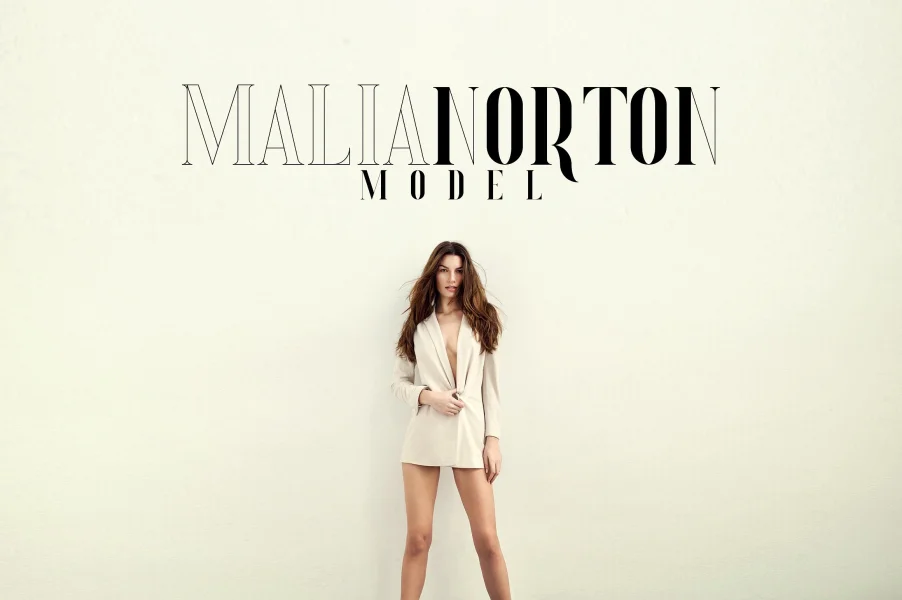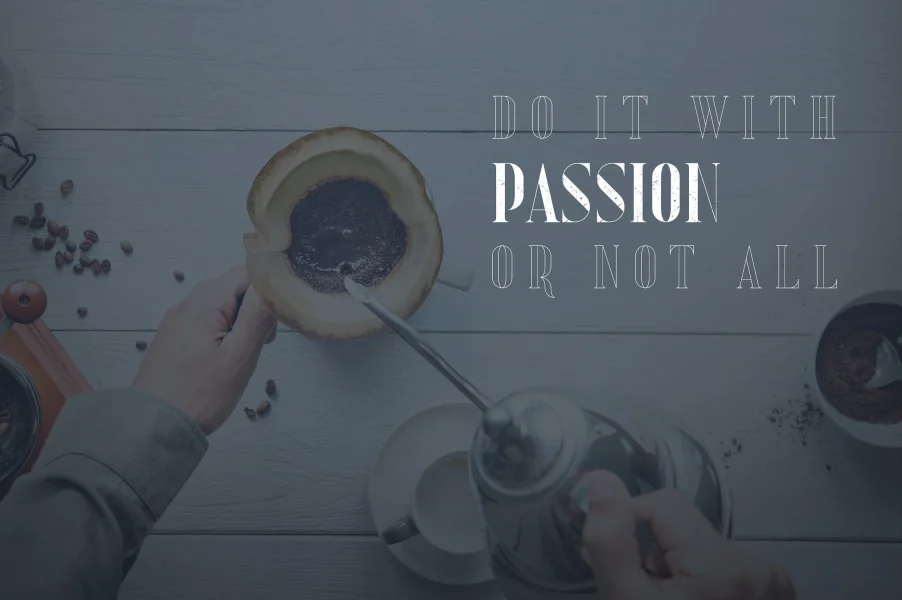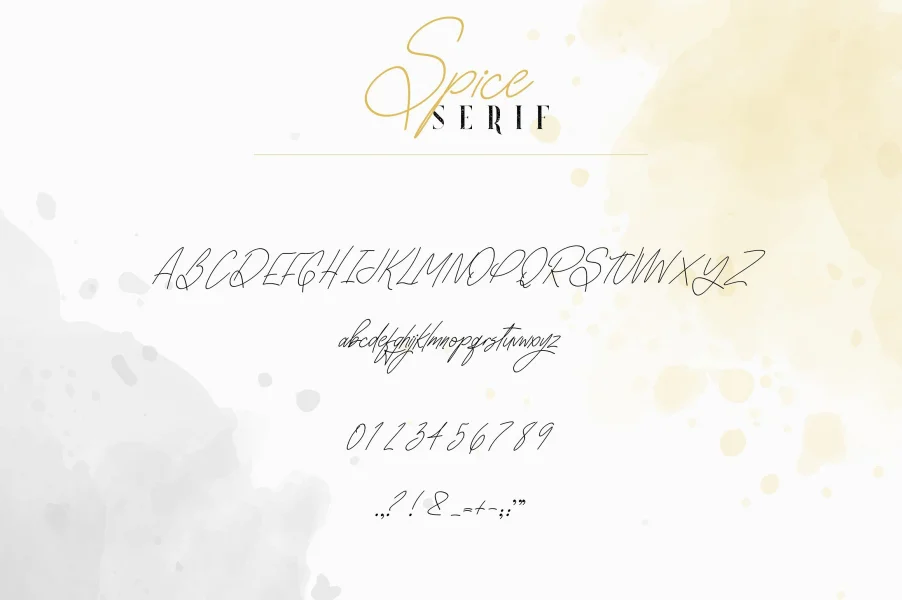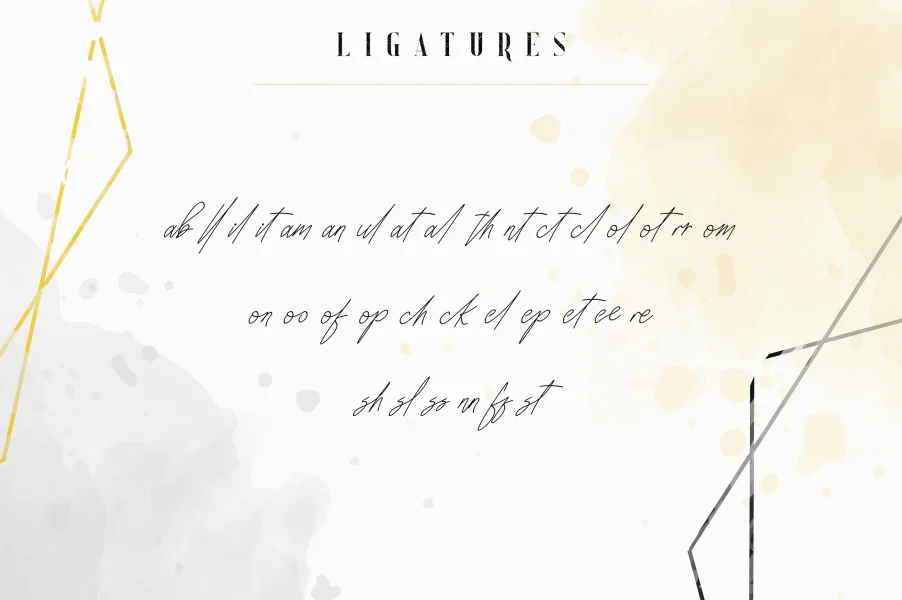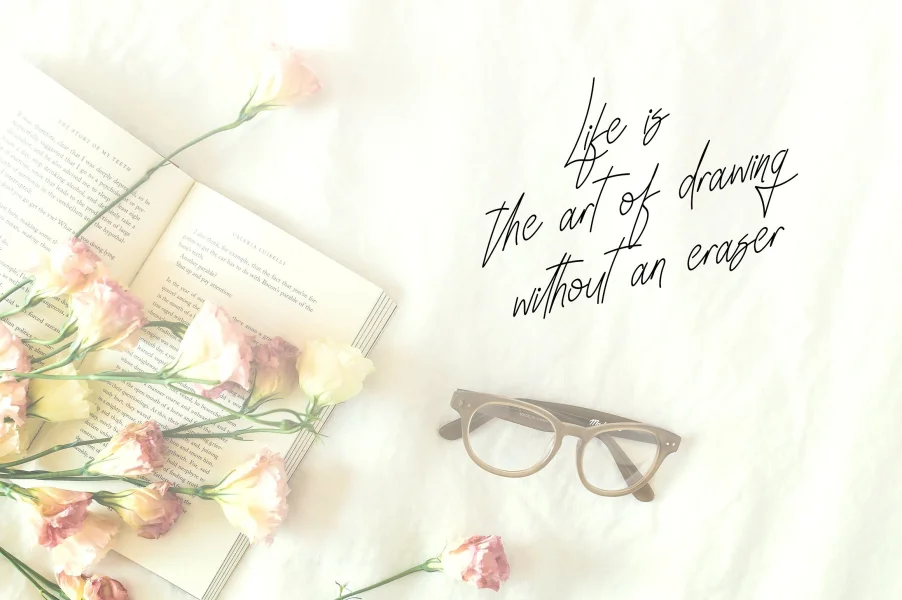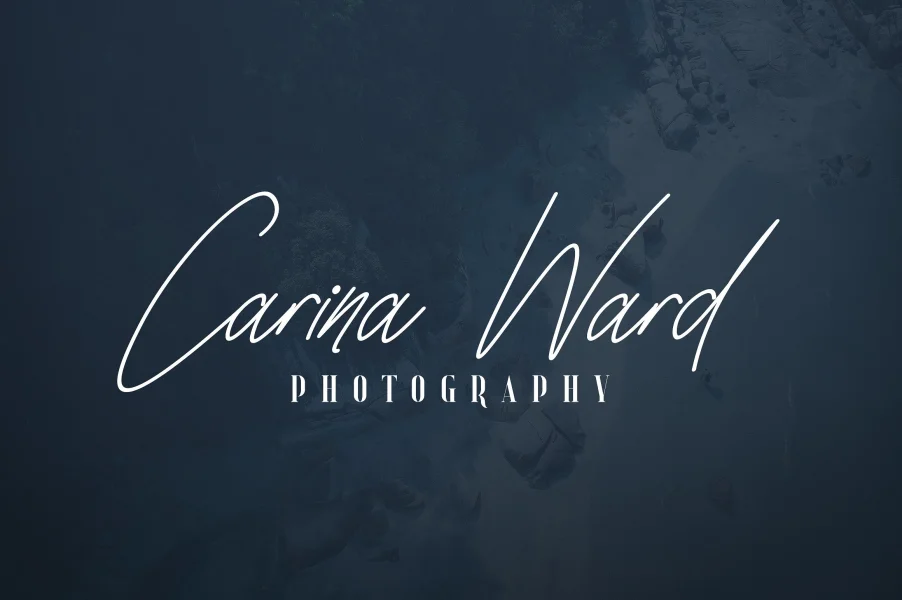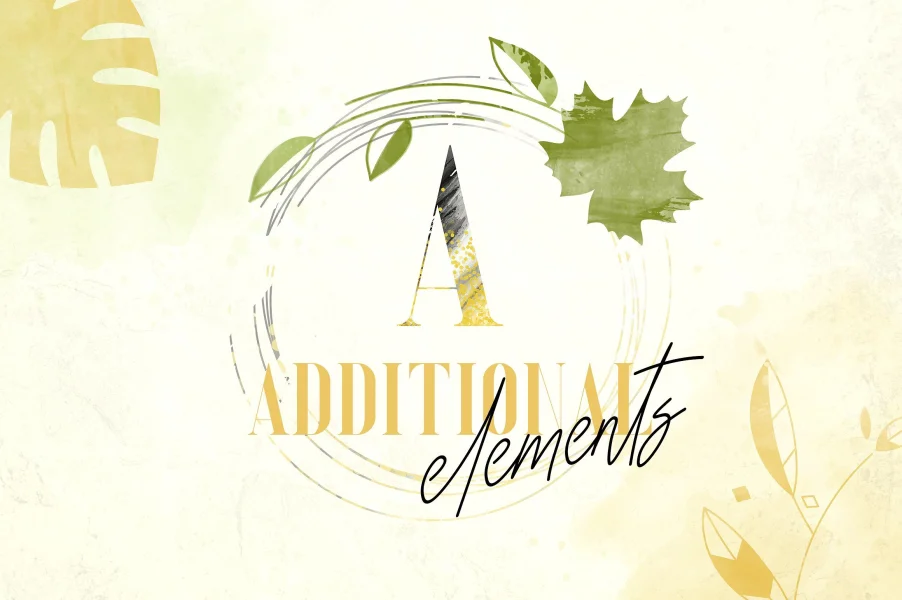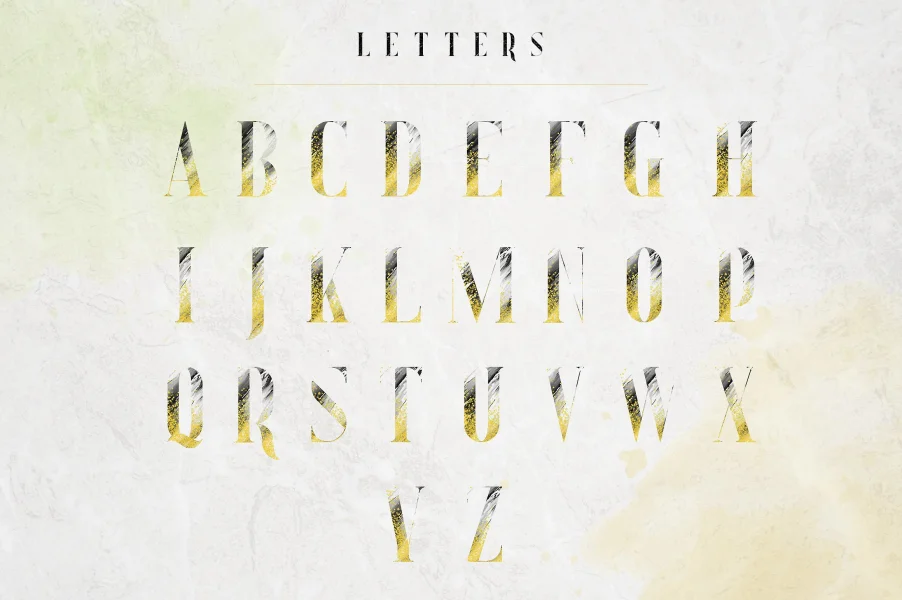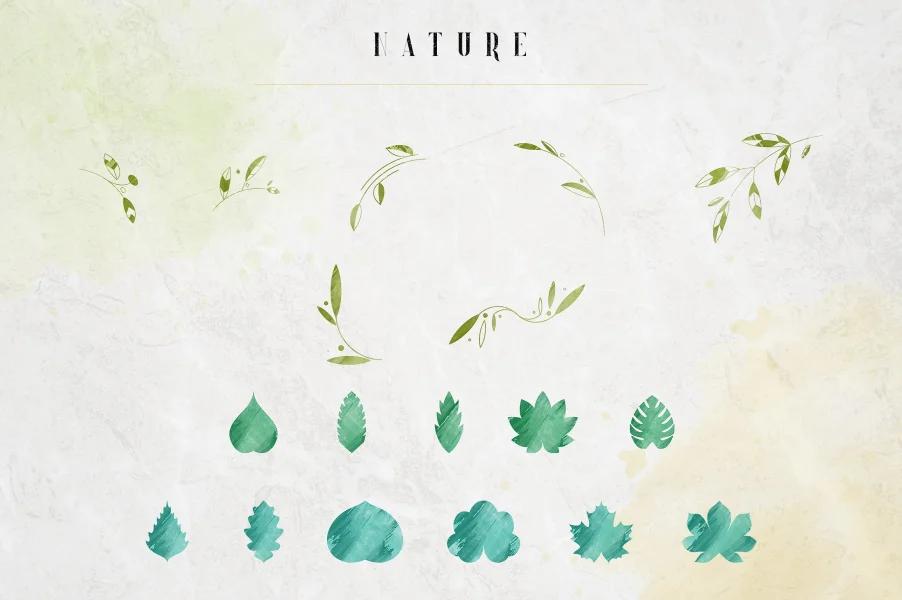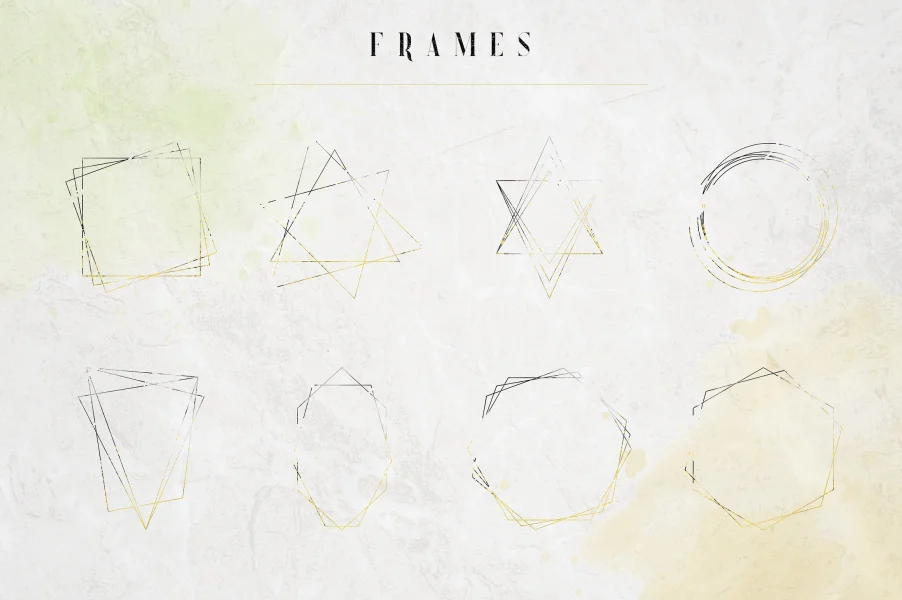
Sugar Spice is elegant, clean font duo with total of 6 font styles, 56 graphic elements and multilingual support. It's a very versatile font that works great in large and small sizes.
Sugar Spice is perfect for branding projects, home-ware designs, product packaging, magazine headers - or simply as a stylish text overlay to any background image.